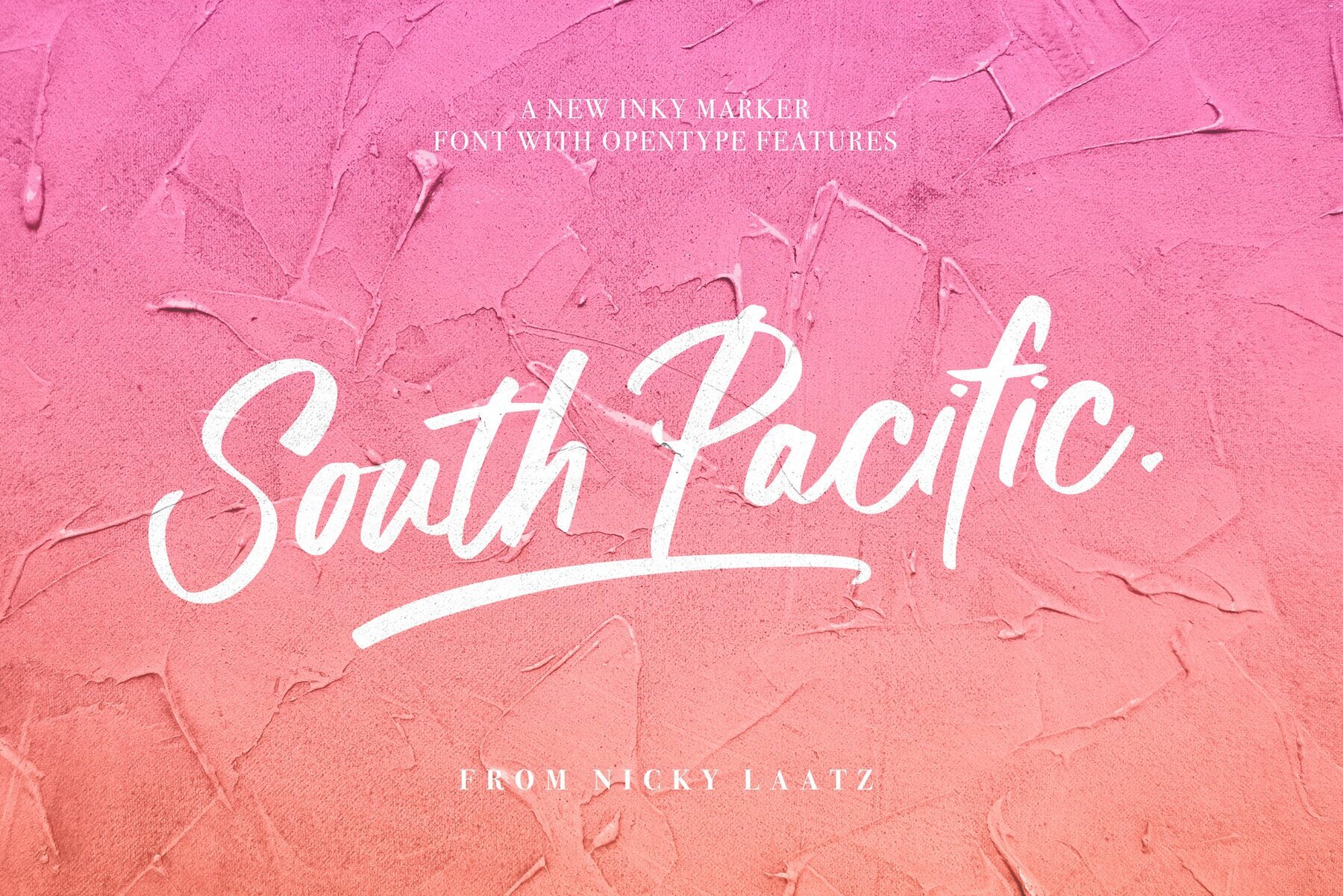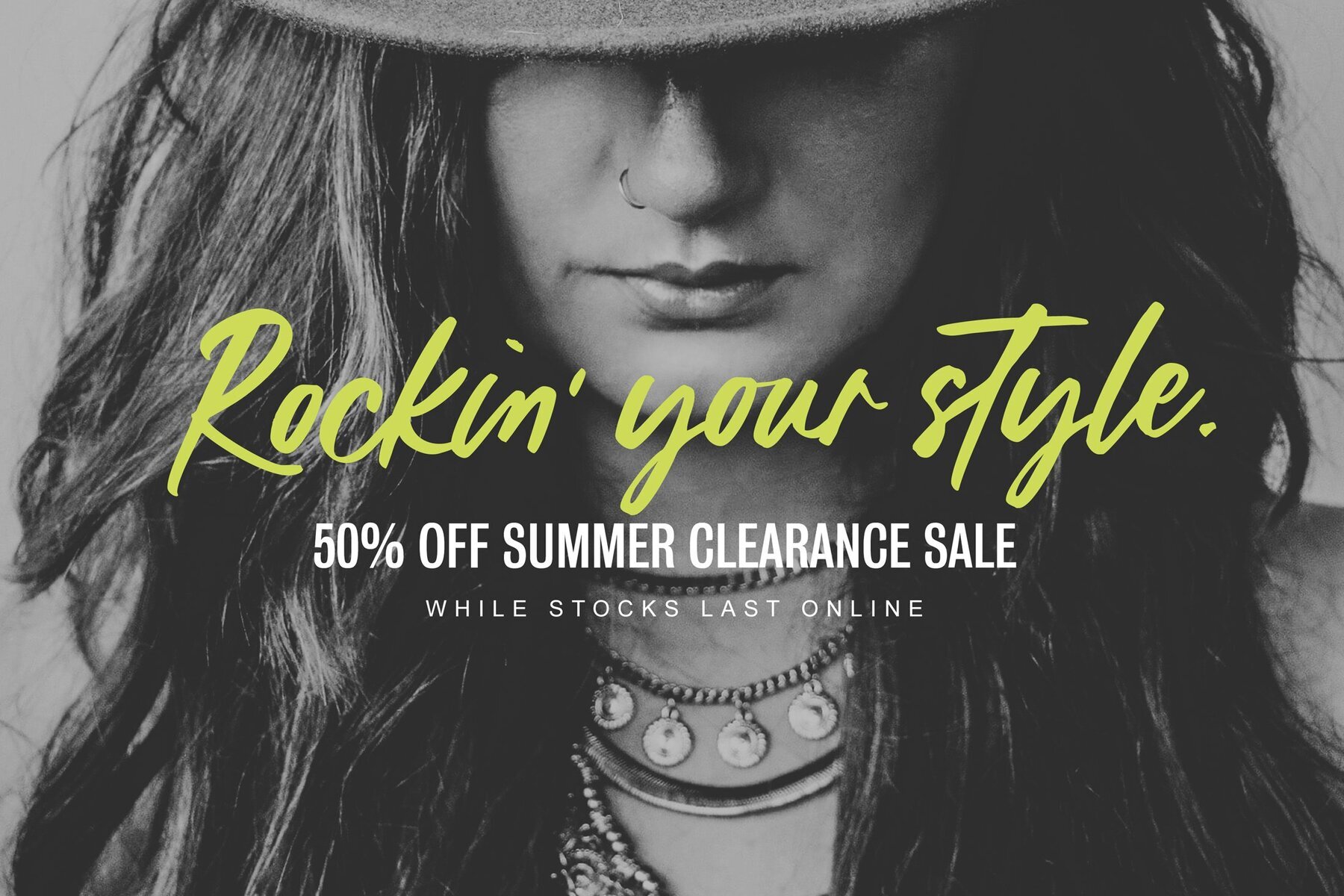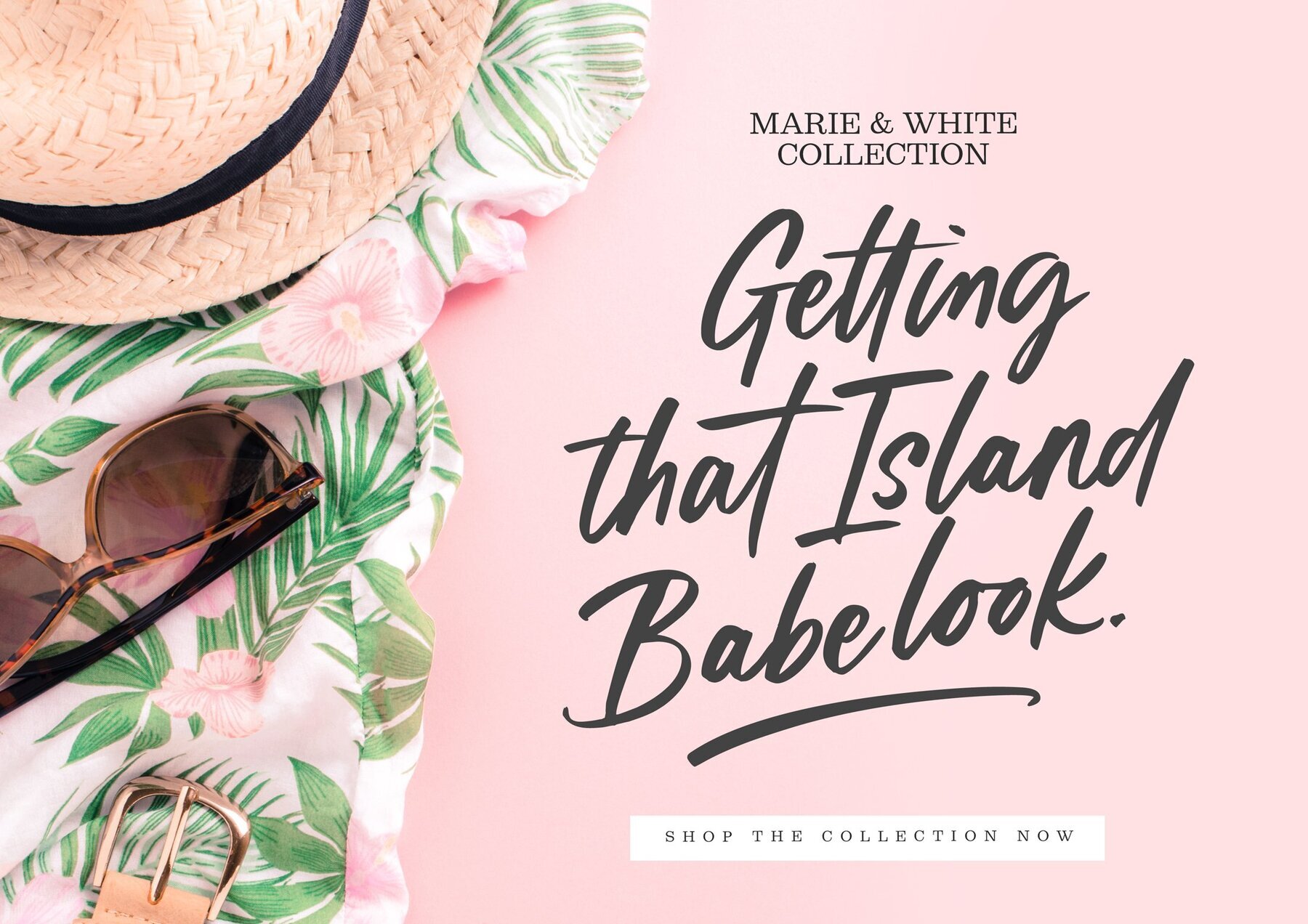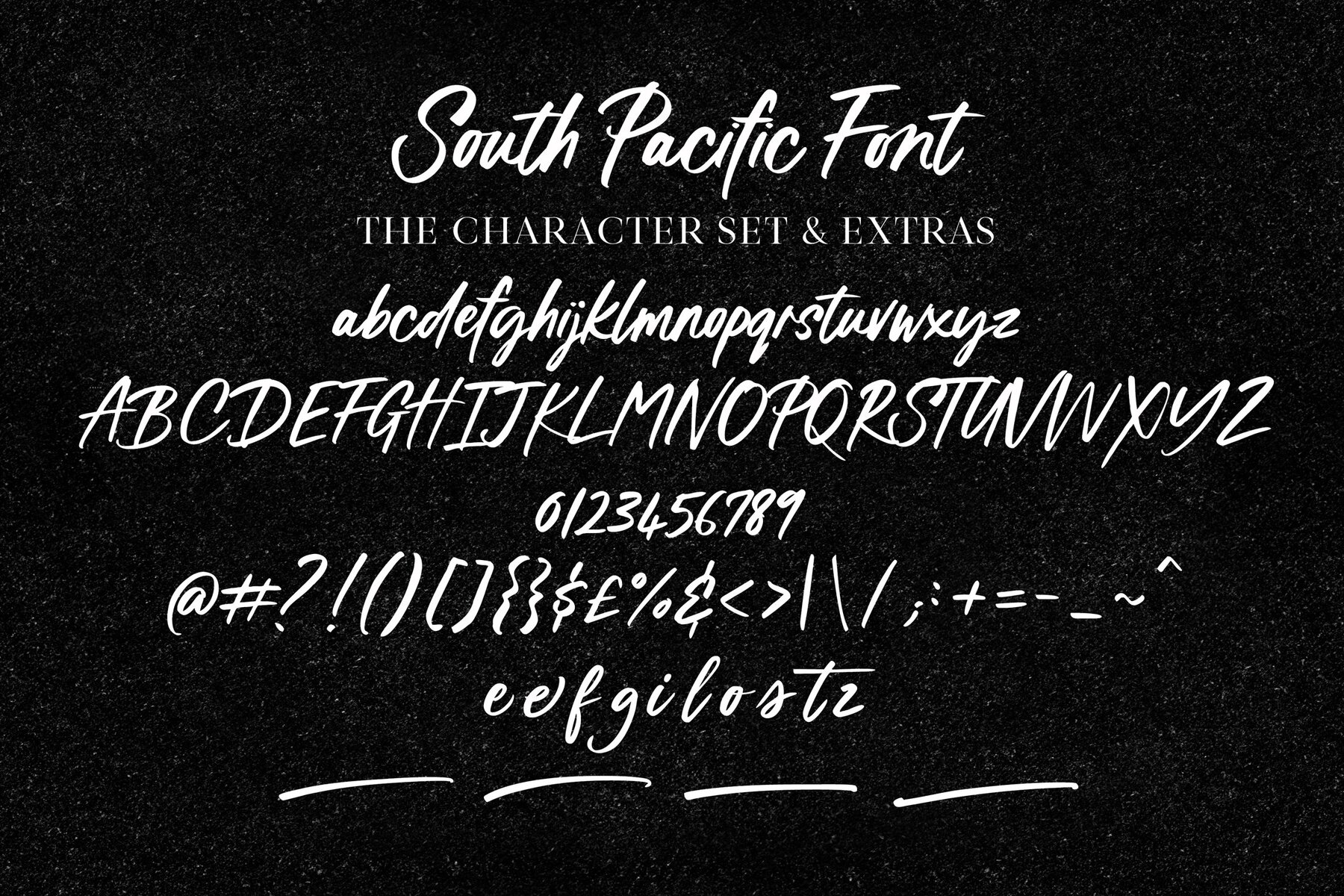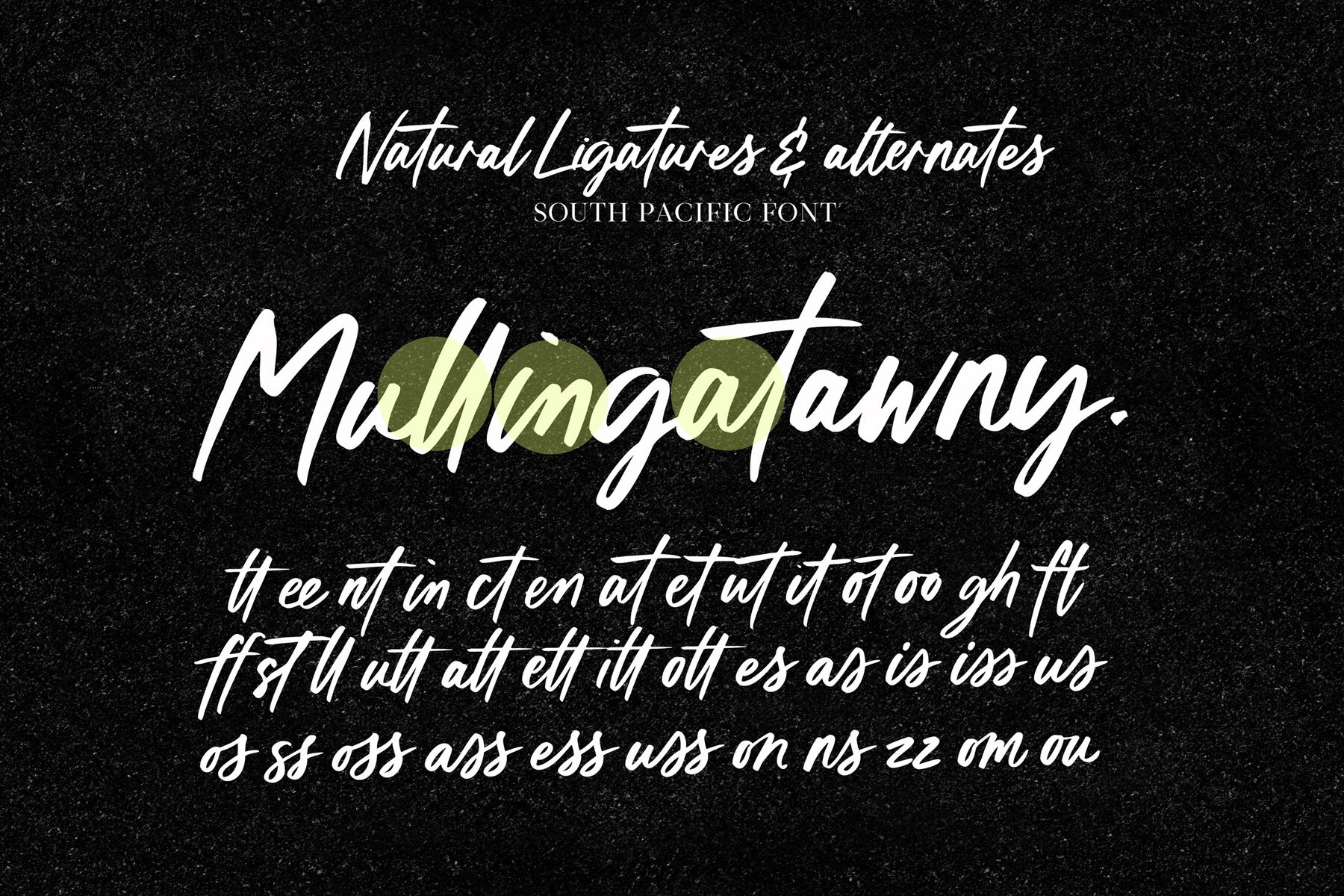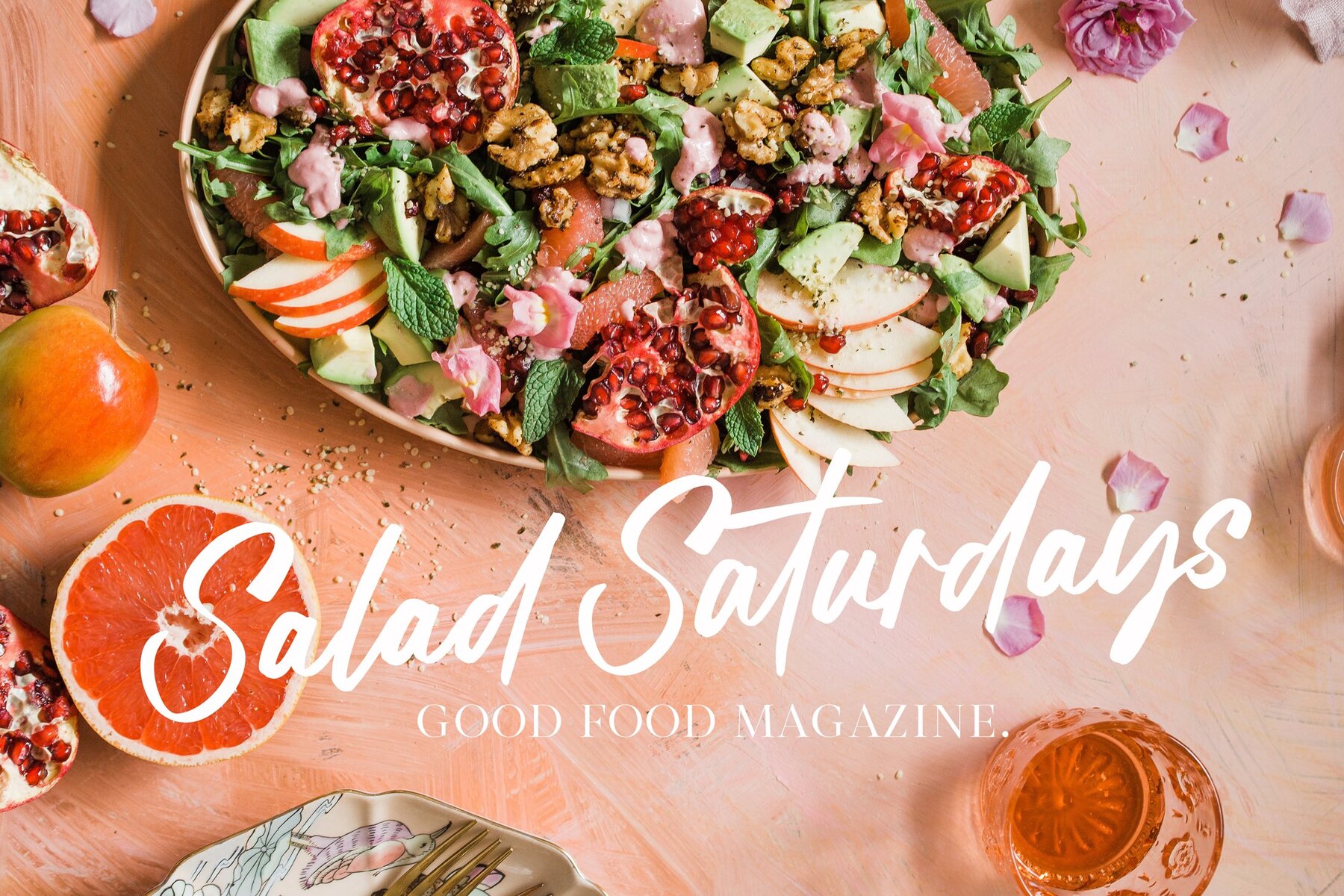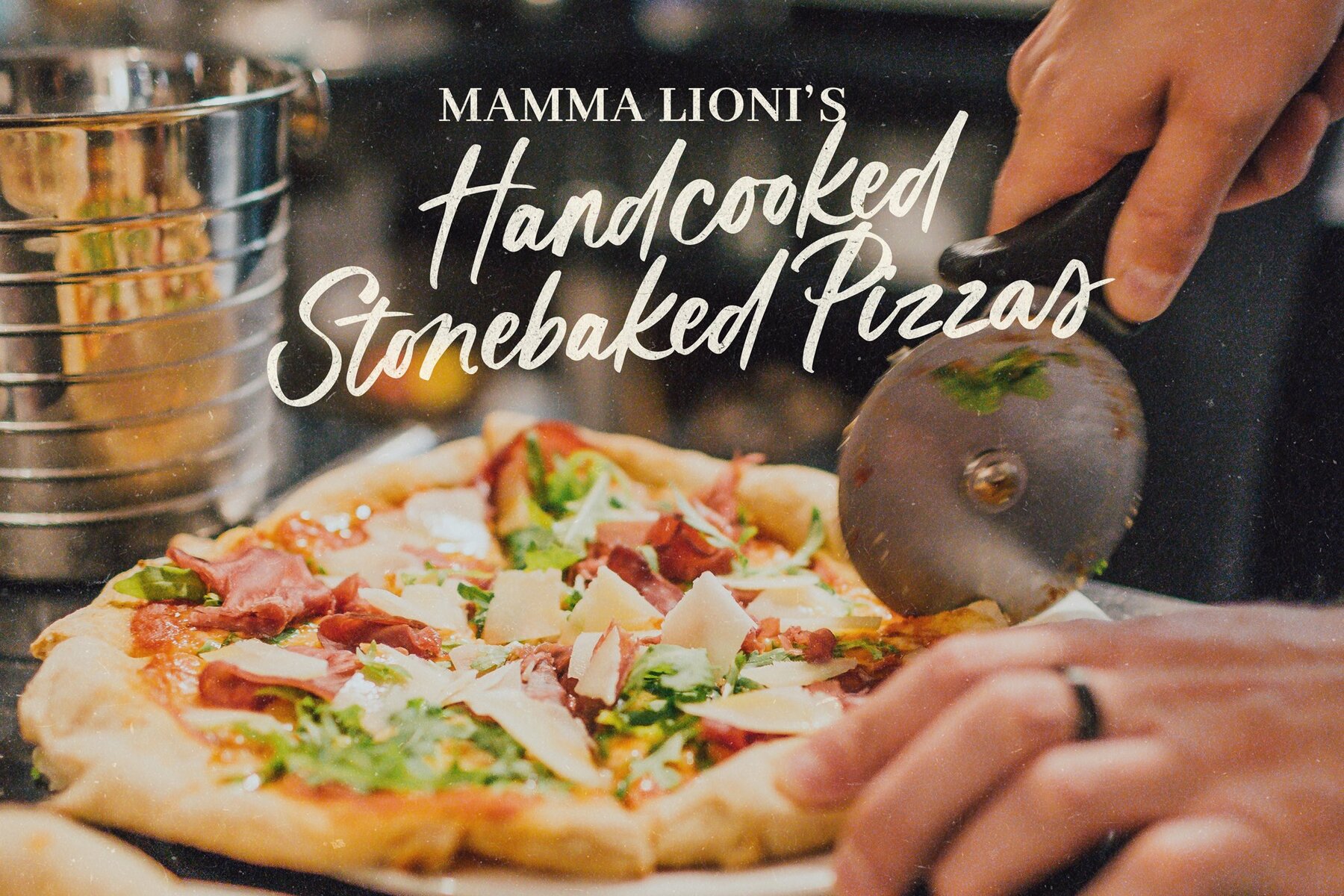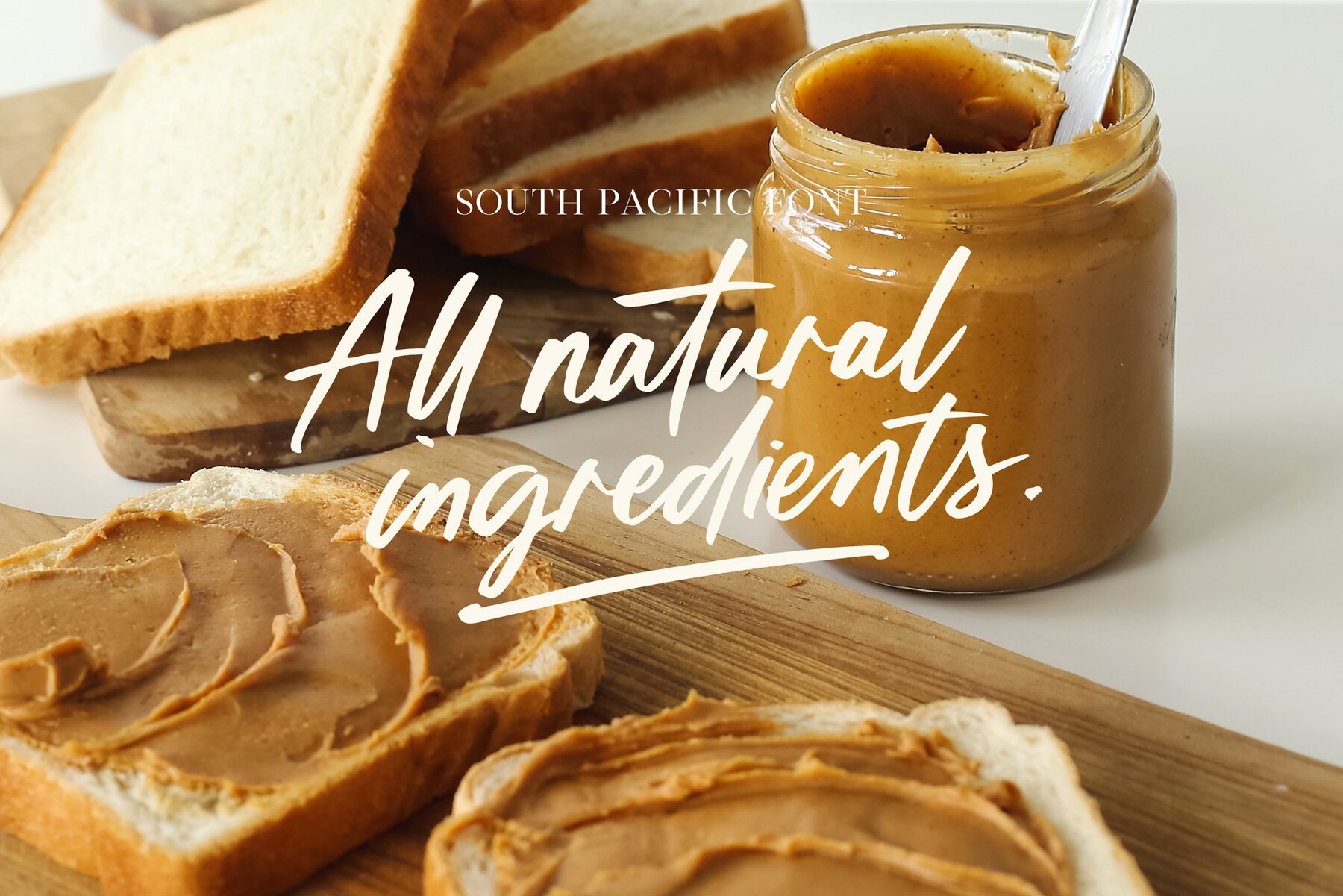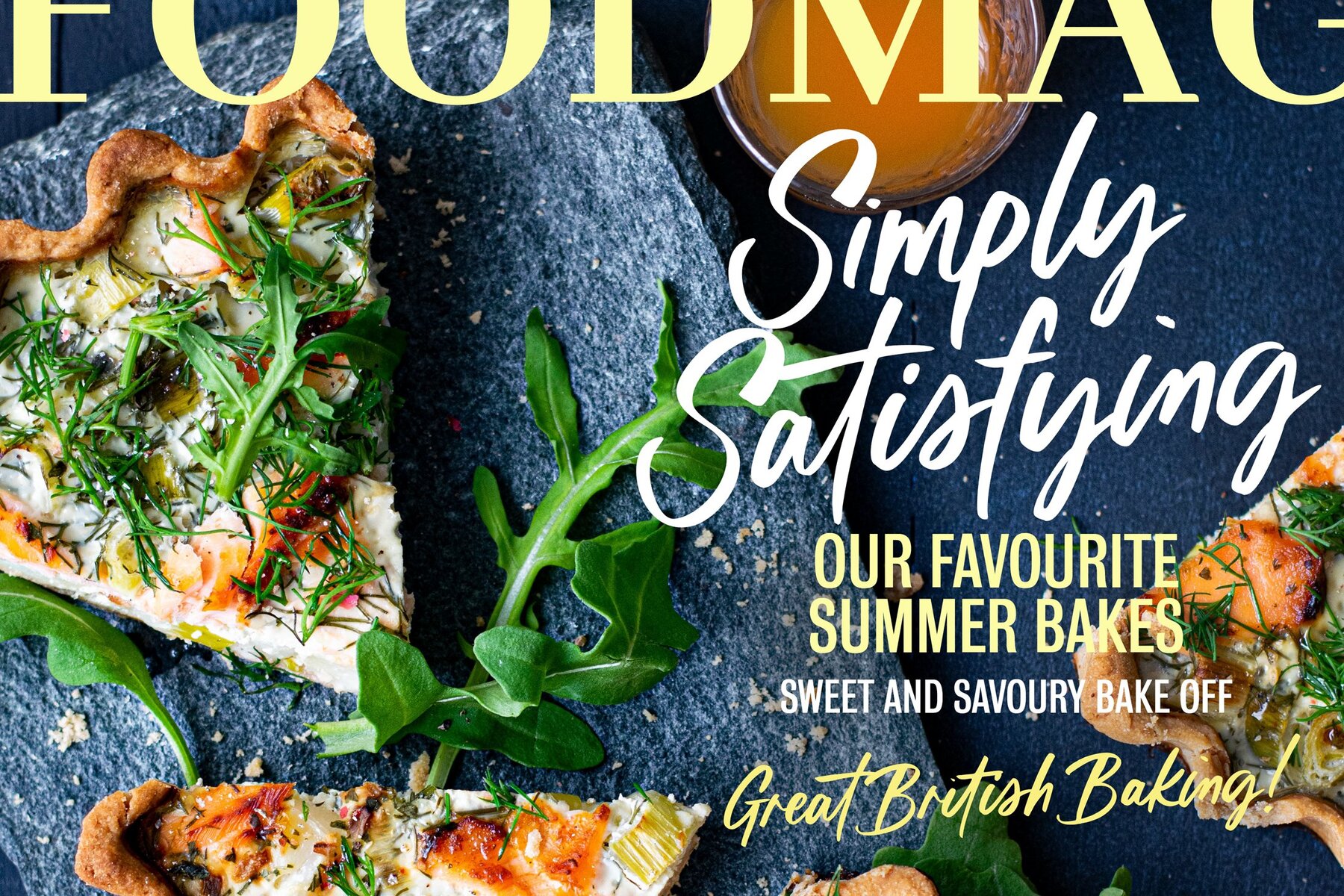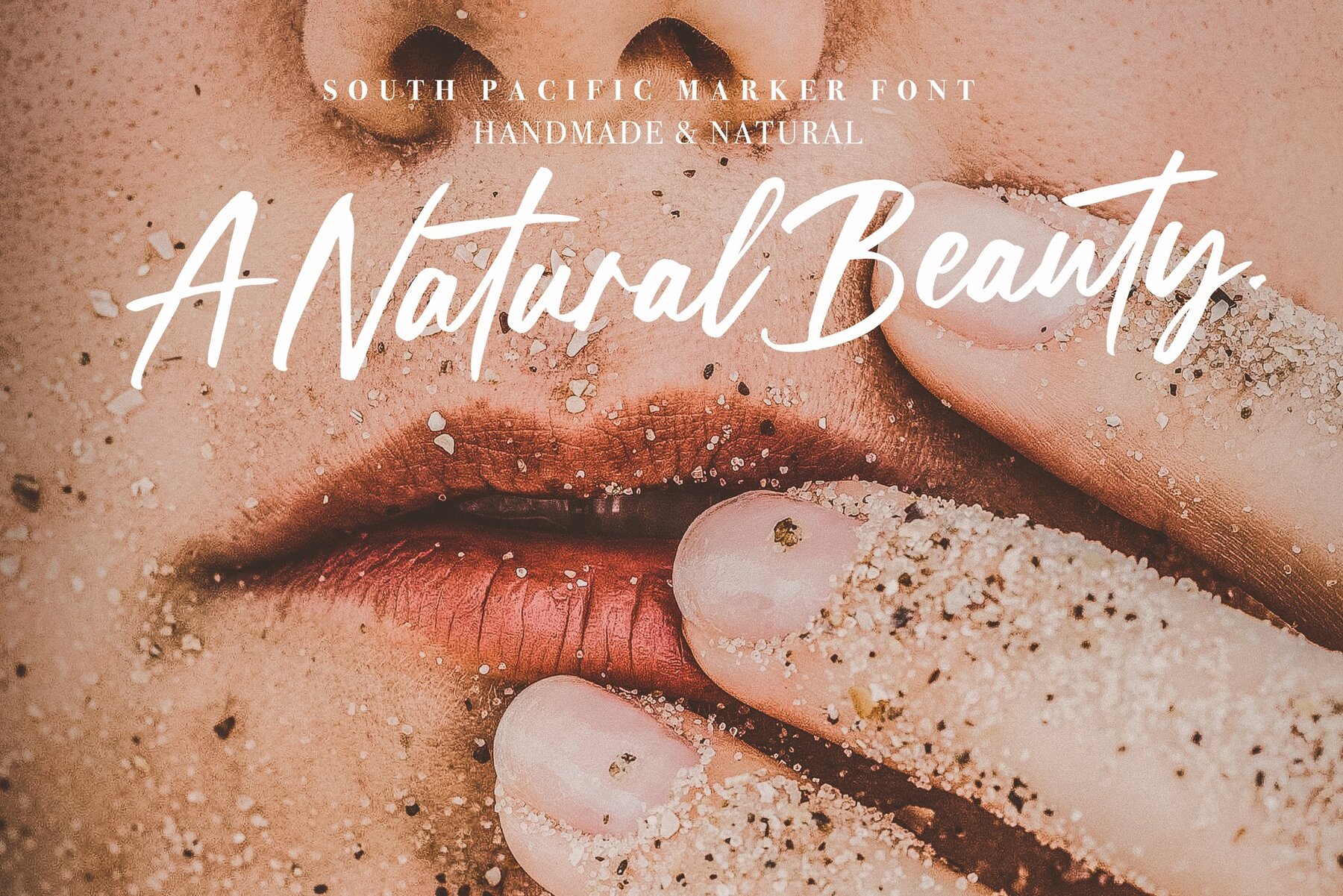
South Pacific Font
South Pacific Regular
Welcome South Pacific Marker into your font repertoire - an inky, bold font that encapsulates the natural spontaneity of handwritten calligraphy. This typeface effortlessly balances a casual vibe with an unmistakable strength, an ideal blend for those seeking a relaxed yet assertive presence in their designs. South Pacific Marker stands out with its organic-looking ligatures and an array of alternate characters. Like a beautifully adorned chameleon, it dons various faces, each one as striking as the next. This typeface invites you to delve into its Opentype Features, where you will find a treasure trove of extras, designed to transform the ordinary into the remarkable. Be sure to flip the switch on your stylistic alternates to fully experience this delightful adventure. Embark on a journey of creative discovery with South Pacific Marker. Four nifty swashes lie waiting for you in the glyphset, ready to add a dash of flourish to your designs. With South Pacific Marker, every character is not just a letter, but a springboard for creativity.